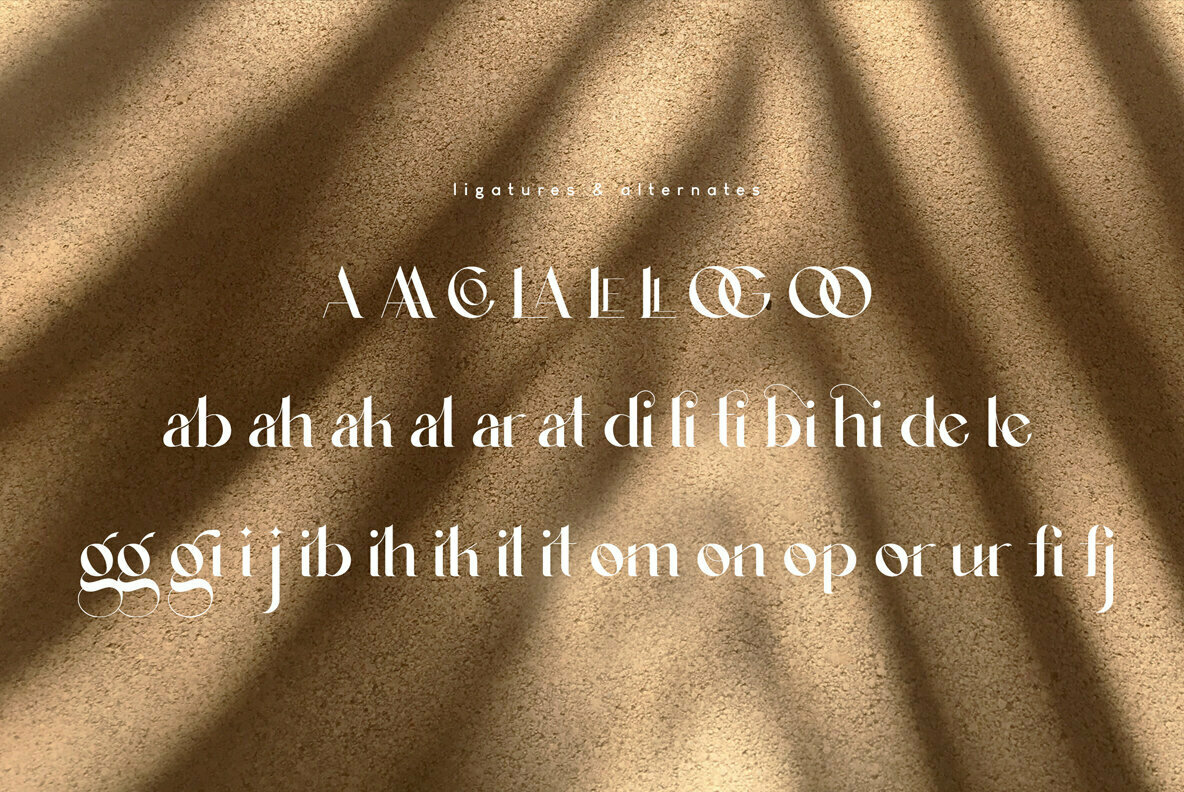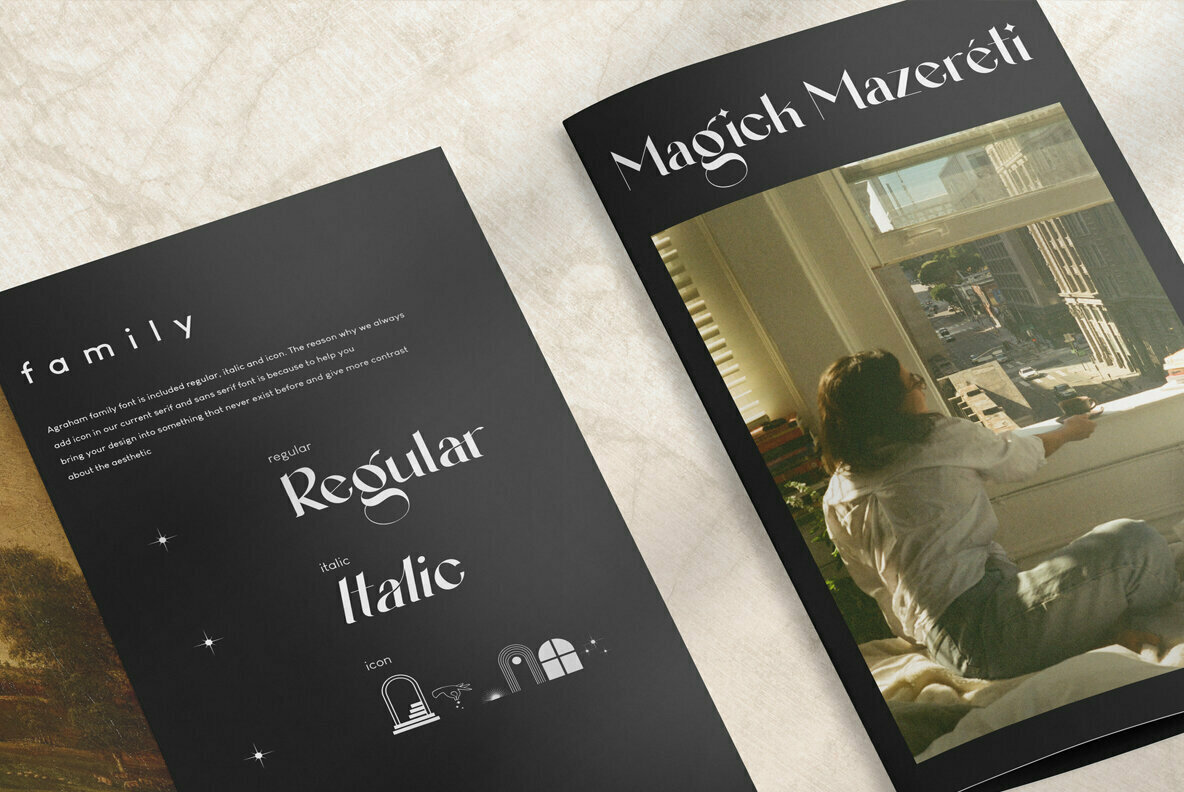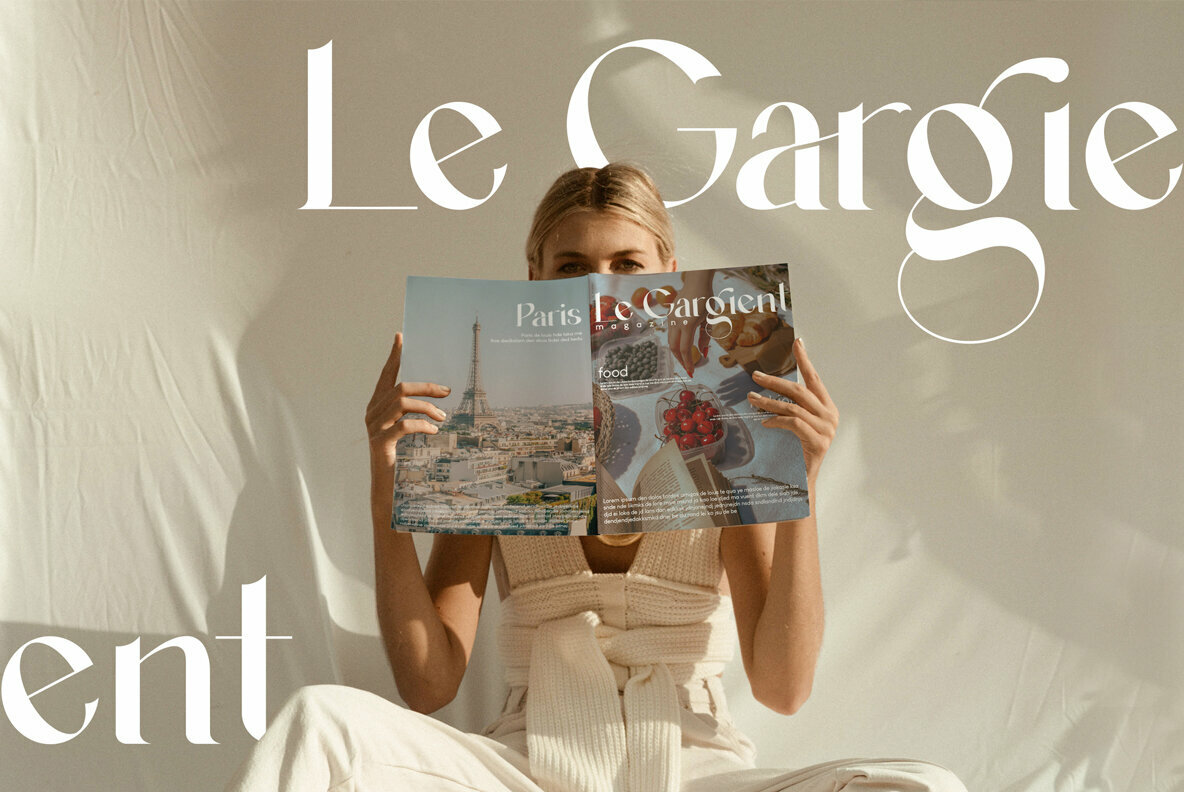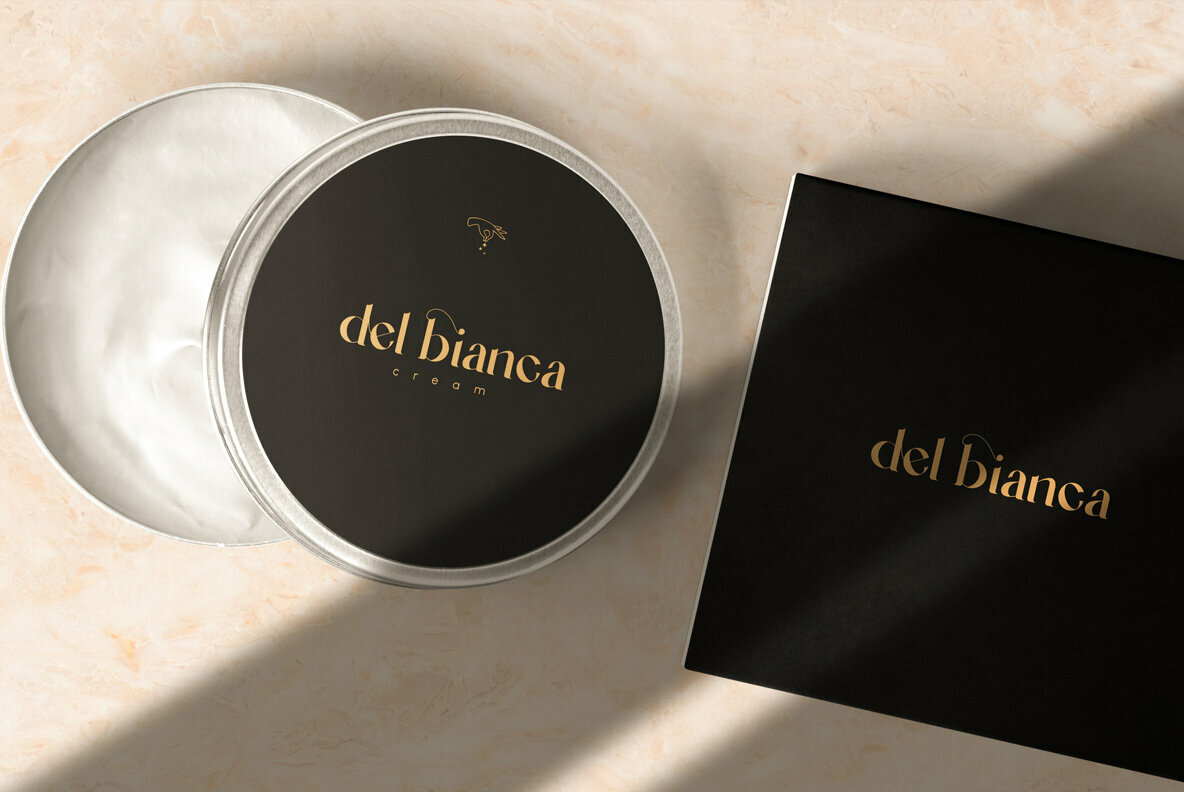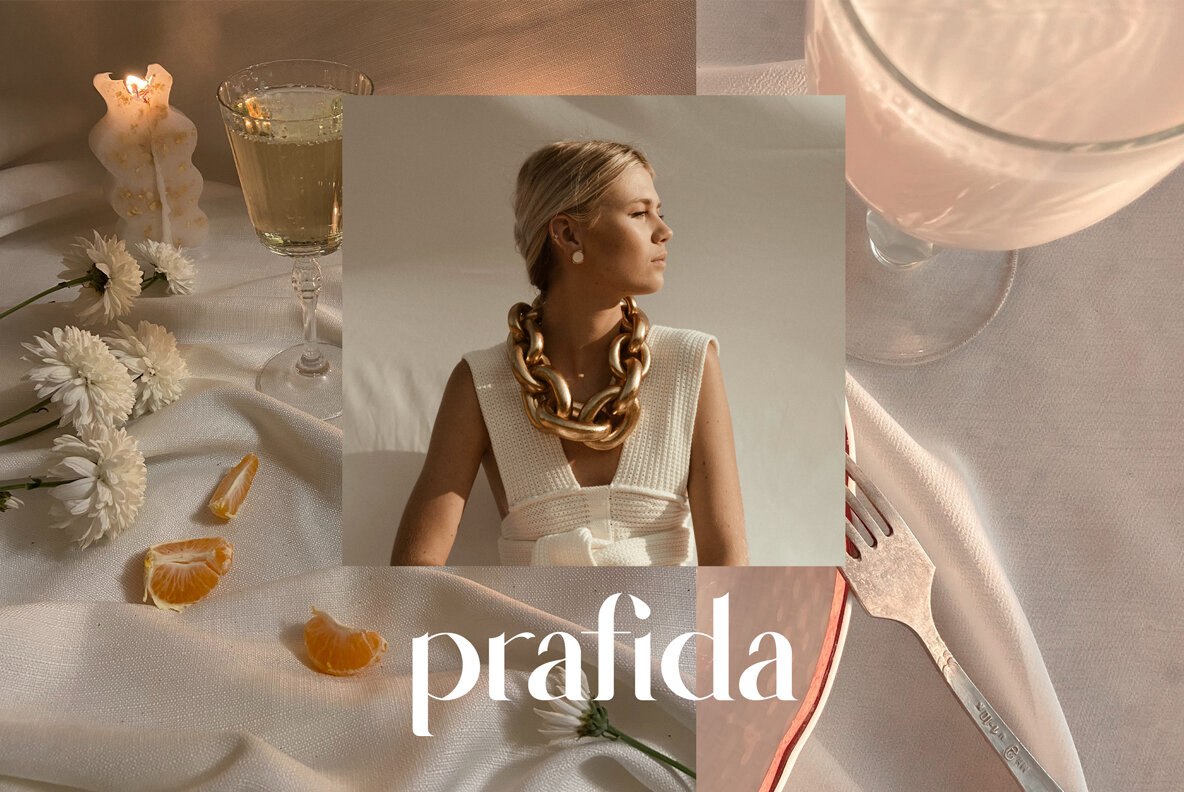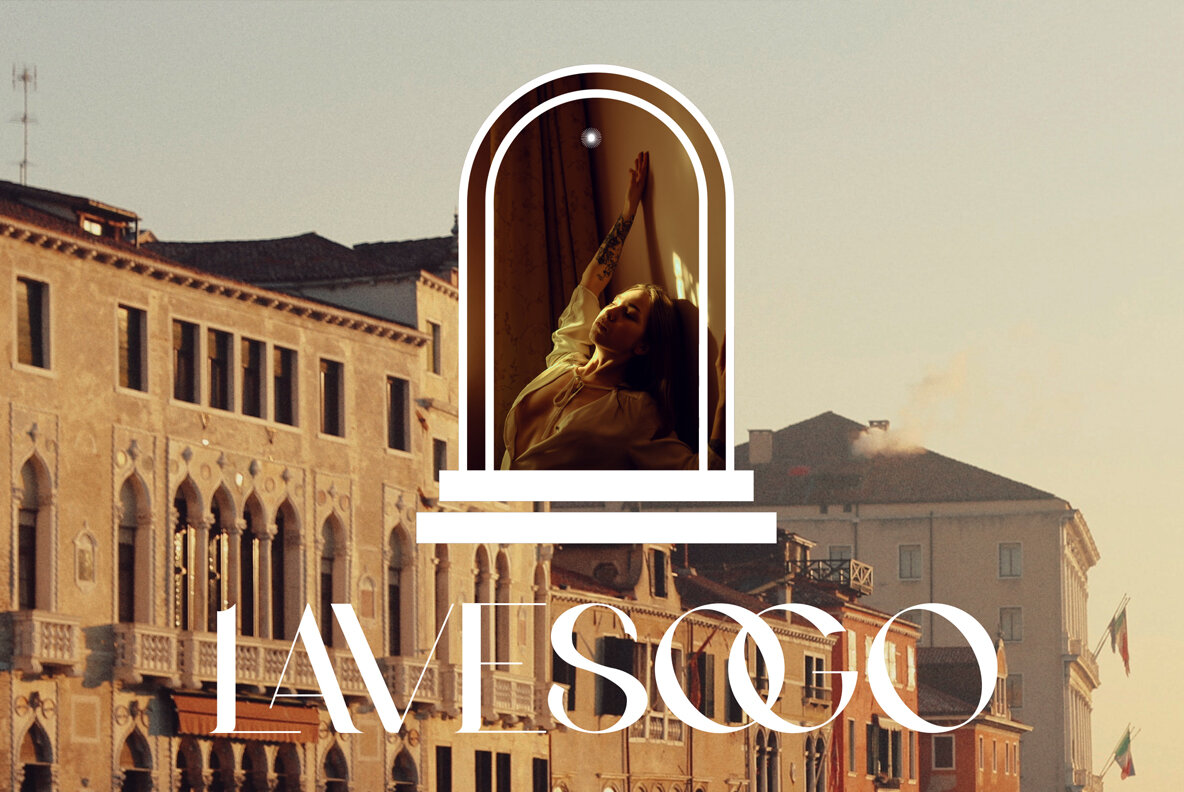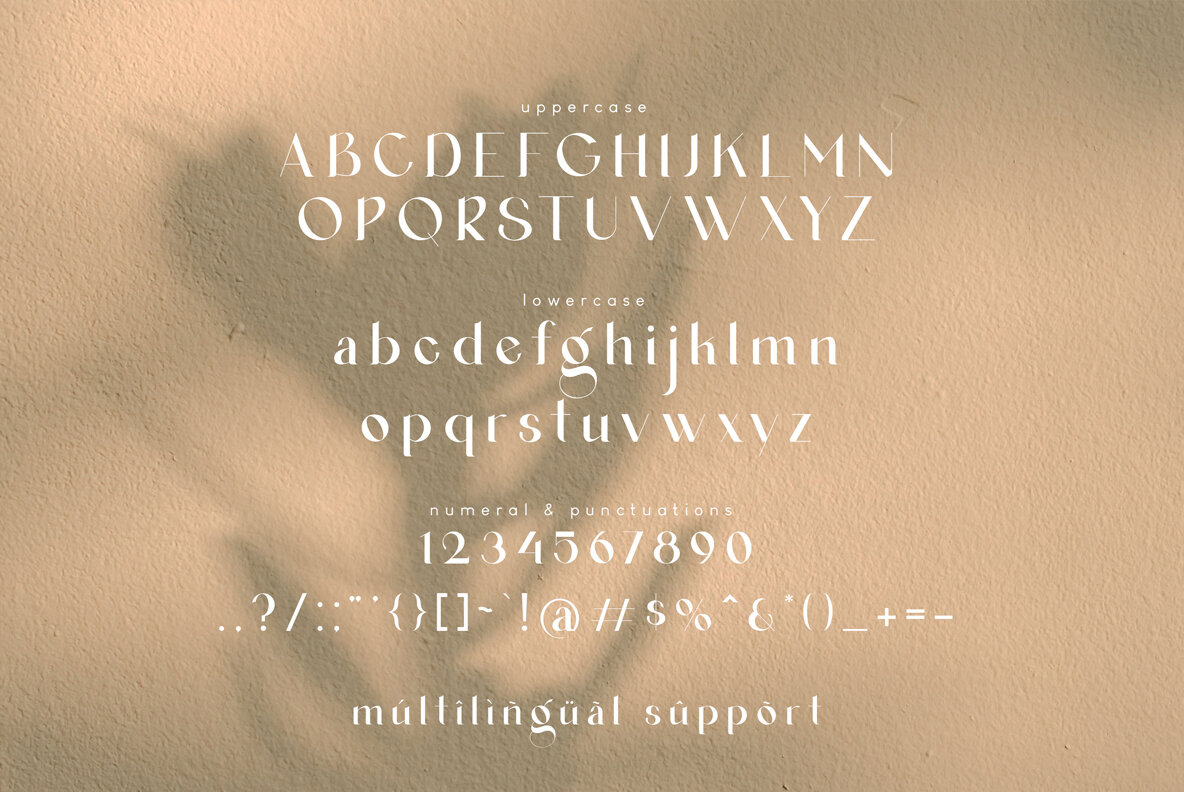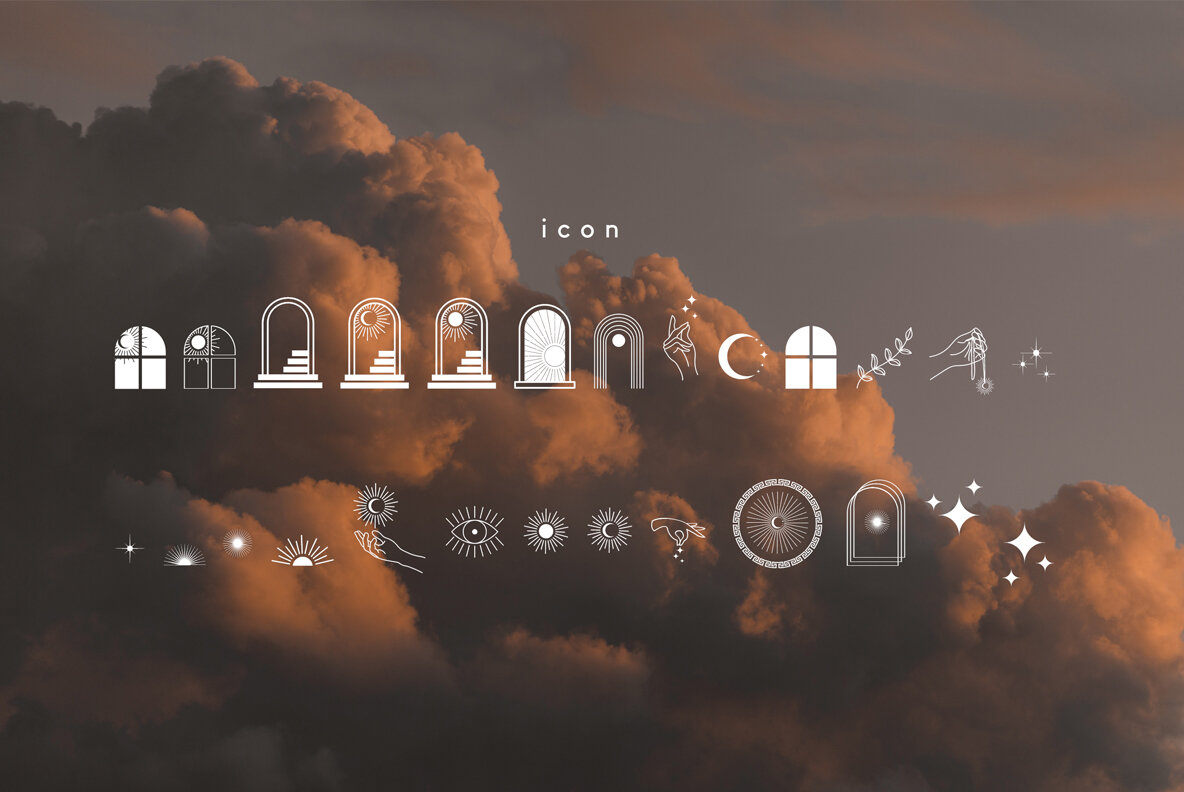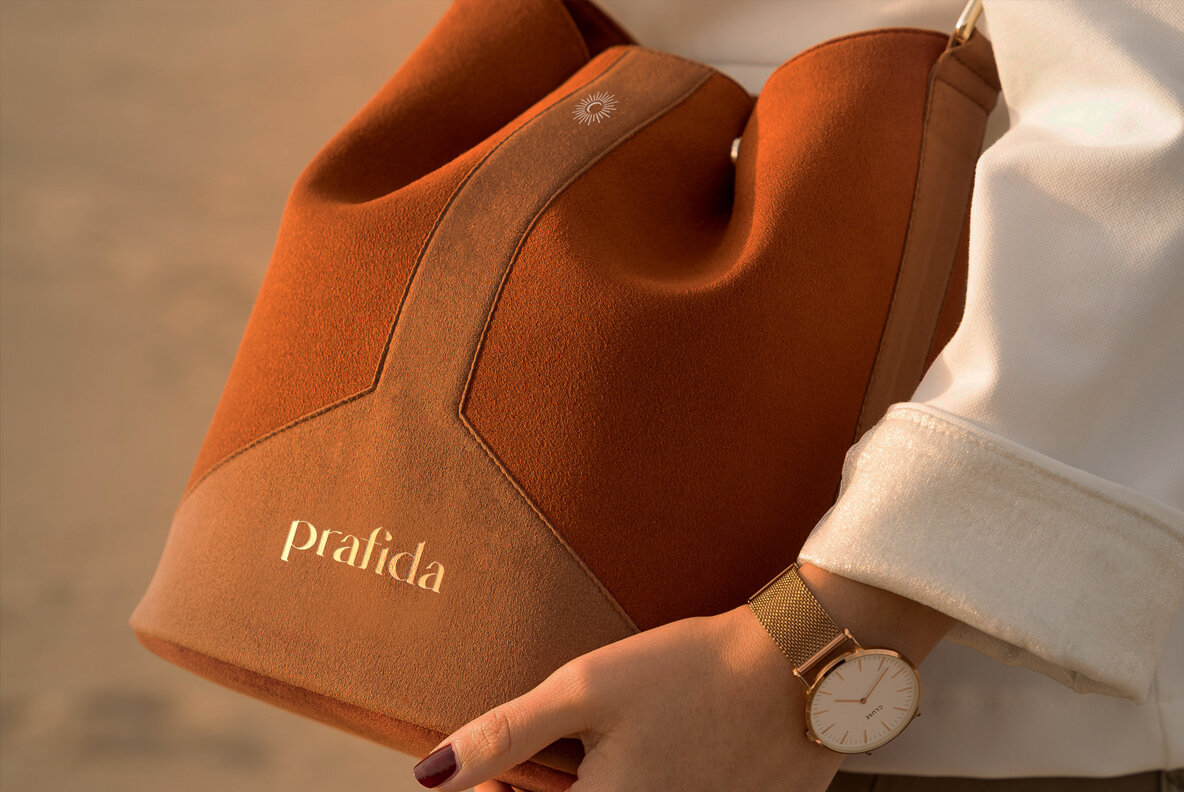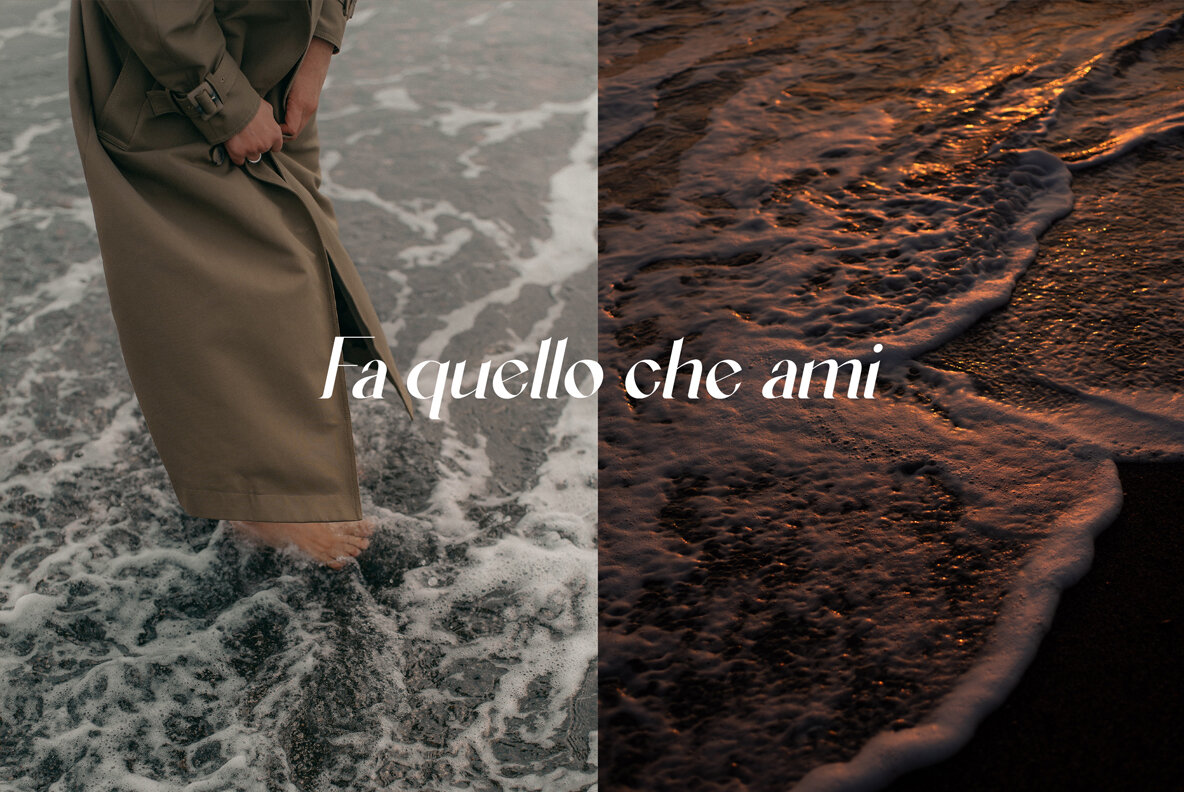
Agraham Font
Agraham Regular
Agraham Italic
Agraham Icon Icon
Agraham is aesthetic serif font which the inspiration come from the unique Italy's vibes and some little touch from the beauty of Paris, France. It is so perfect for Logo brand, product packaging, advertisement, social media post, fashion brand, magazine headers and many more
complete with
- ligatures
- alternates
- regular
- italic
- icon
- kerning
- multilingual support